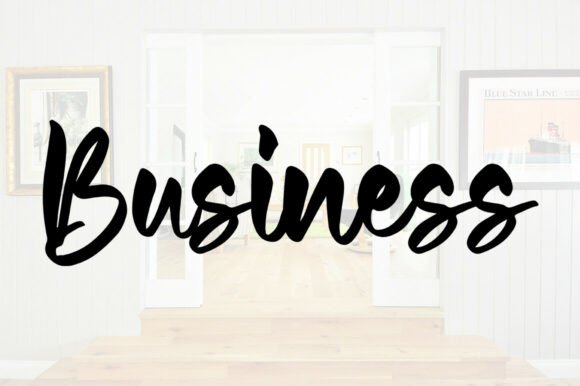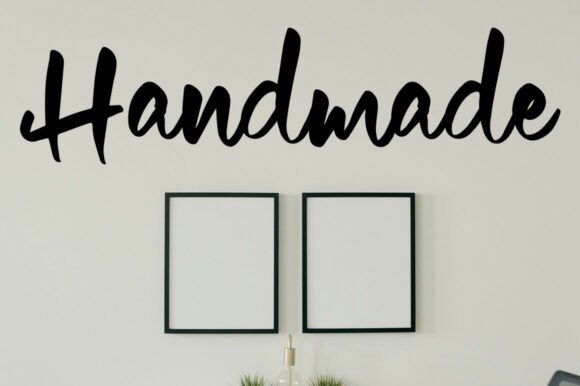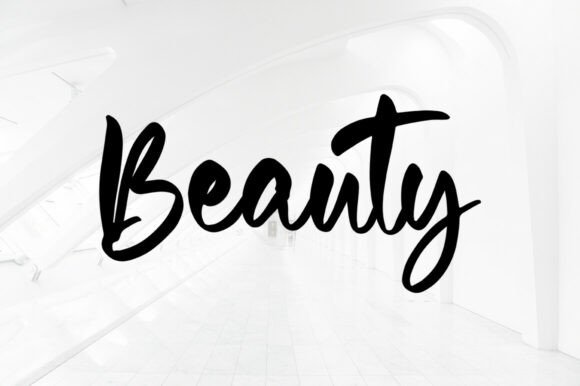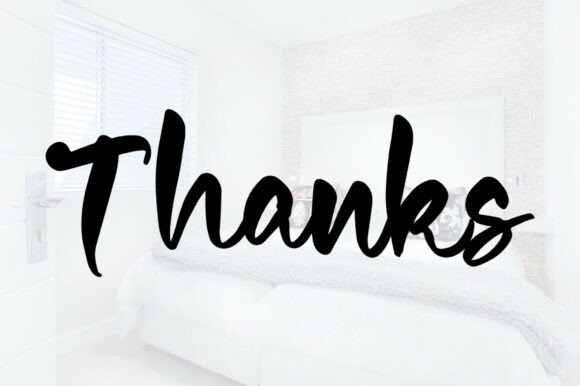
Introducing Angles Font: The Sweet Handwritten Font for Your Design Needs
Are you looking for a font that can add a touch of sweetness and friendliness to your designs? Look no further than Angles Font! This beautiful handwritten font is perfect for creating wedding invitations, cards, and other designs that require a fun and playful touch.
What Makes Angles Font Special?
Angles Font is a unique and charming font that is sure to capture the hearts of designers and crafters alike. Its sweet and friendly appearance makes it ideal for a wide range of design projects, from wedding invitations and cards to social media graphics and blog posts.
One of the standout features of Angles Font is its handwritten style, which gives it a personal and approachable feel. The font’s letters are carefully crafted to resemble the imperfections and quirks of handwriting, making it perfect for designs that require a touch of warmth and personality.
Why Choose Angles Font?
There are many reasons why Angles Font is an excellent choice for designers and crafters. Here are just a few:
- Friendly and Cute: Angles Font has a friendly and cute appearance that is sure to delight your audience. Its playful style makes it perfect for designs that require a fun and lighthearted touch.
- Versatile: Angles Font is a versatile font that can be used for a wide range of design projects. Whether you’re creating wedding invitations, cards, or social media graphics, this font is sure to impress.
- Easy to Read: Despite its handwritten style, Angles Font is easy to read and understand. This makes it perfect for designs that require a clear and concise message.
- Unique: Angles Font is a unique font that is sure to stand out from the crowd. Its distinctive style makes it perfect for designers who want to create designs that are memorable and eye-catching.
How to Use Angles Font in Your Designs
Using Angles Font in your designs is easy! Here are a few tips to get you started:
- Pair it with Other Fonts: Angles Font pairs well with other fonts, such as sans-serif fonts and script fonts. Experiment with different font combinations to create unique and interesting designs.
- Use it for Headings and Titles: Angles Font is perfect for headings and titles, where its playful style can really shine. Use it to add a touch of personality to your designs.
- Add it to Your Digital Toolkit: Angles Font is a versatile font that can be used for a wide range of design projects. Add it to your digital toolkit and use it whenever you need to add a touch of sweetness and friendliness to your designs.
Design Ideas that Showcase Angles Font
Angles Font is a versatile font that can be used for a wide range of design projects. Here are a few ideas to get you started:
- Wedding Invitations: Angles Font is perfect for wedding invitations, where its sweet and romantic style can really shine. Use it to create beautiful and memorable invitations that your guests will treasure.
- Cards and Stationery: Angles Font is also great for cards and stationery, where its playful style can add a touch of personality to your designs.
- Social Media Graphics: Angles Font can be used to create eye-catching social media graphics, such as Facebook posts and Instagram stories. Use it to add a touch of fun and personality to your social media designs.
- Blog Posts: Angles Font can also be used to create engaging and readable blog posts. Use it to add a touch of warmth and personality to your writing.
Angles Font is a sweet and friendly handwritten font that is perfect for designers and crafters who want to add a touch of personality to their designs. Its versatile style makes it suitable for a wide range of design projects, from wedding invitations and cards to social media graphics and blog posts. With its easy-to-read style and unique appearance, Angles Font is sure to become a favorite in your digital toolkit.